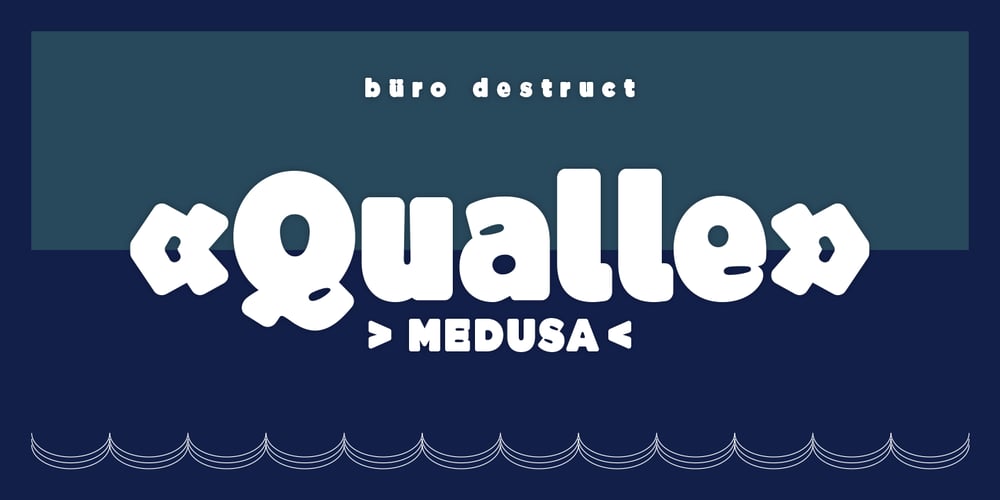
BD Qualle Font Family was designed by published by Typedifferent. BD Qualle contains 1 styles and family package options. BD Qualle is a bold, chubby and friendly fellow great for titling and headlines.